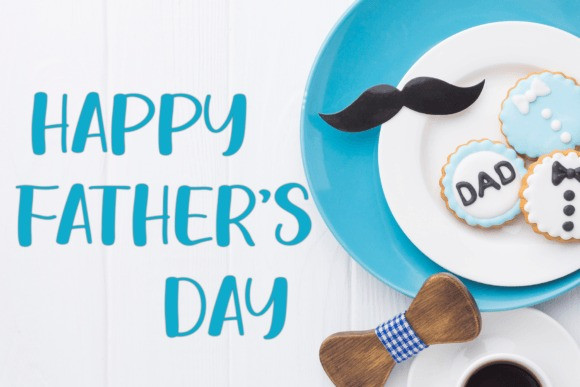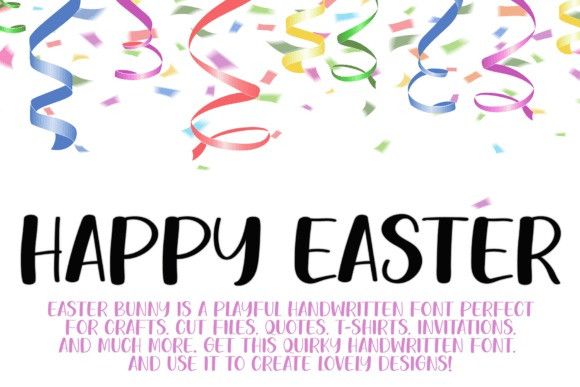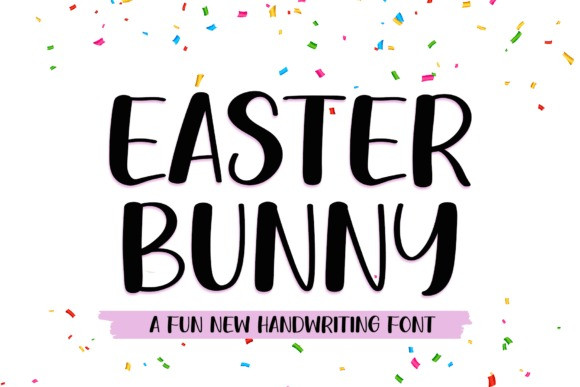
Easter Bunny Playful Font
Easter Bunny Playful Font is a stylish display font with a contemporary atmosphere and impeccable form, inspired by timeless classic calligraphy. Balanced and varied, this font was designed to enhance the beauty of your projects